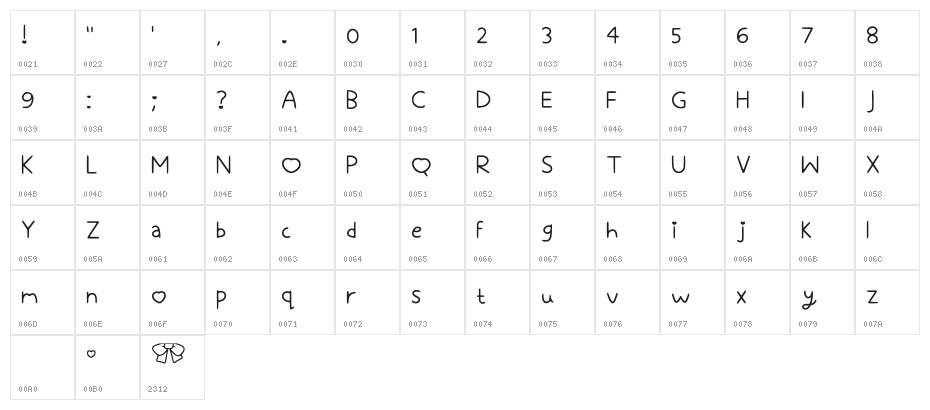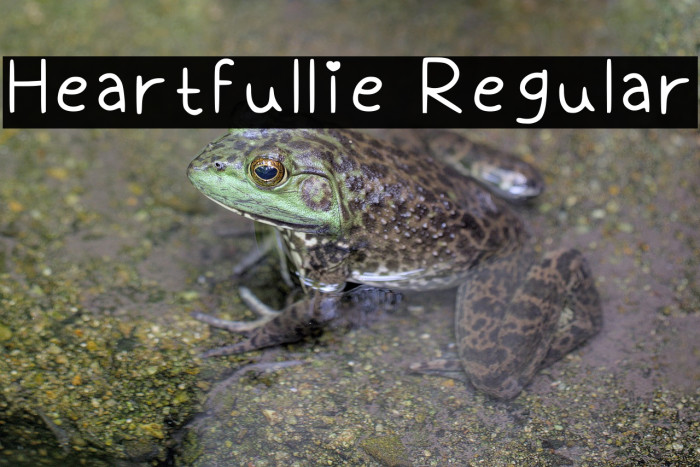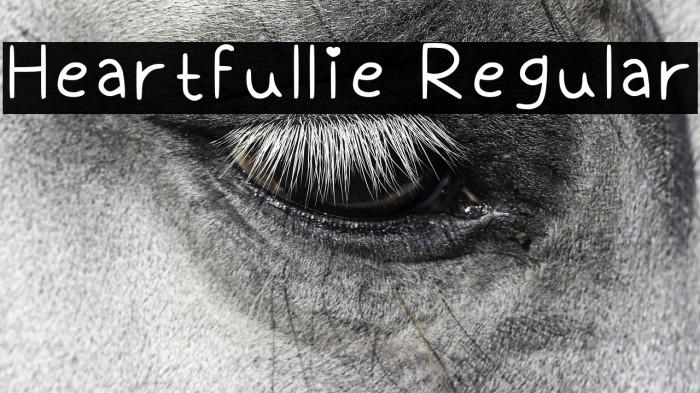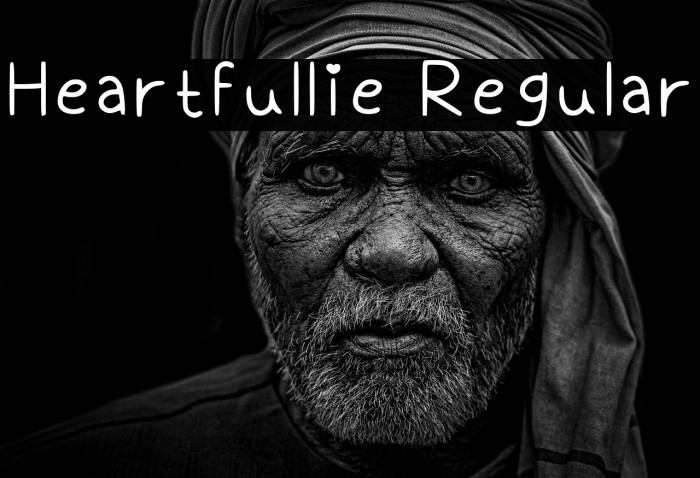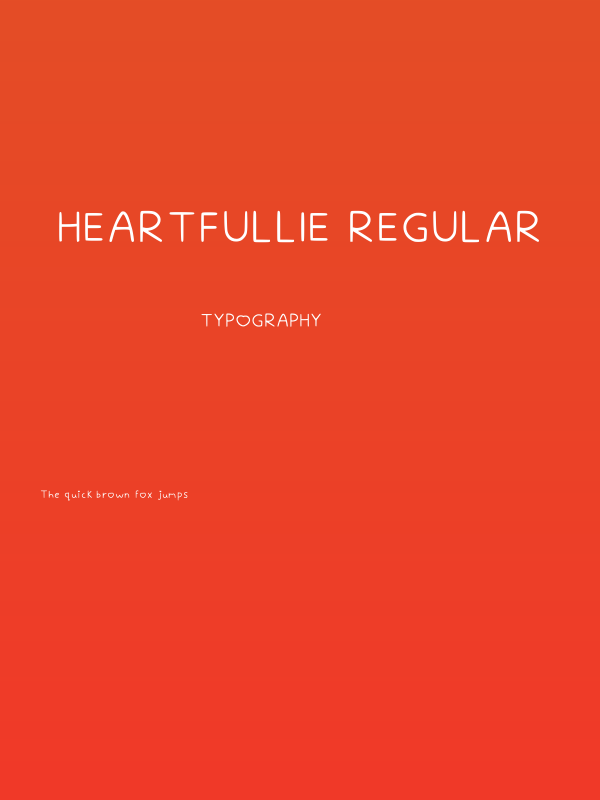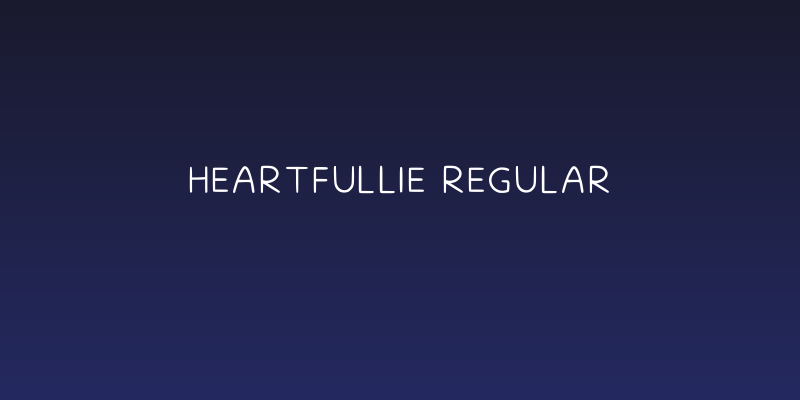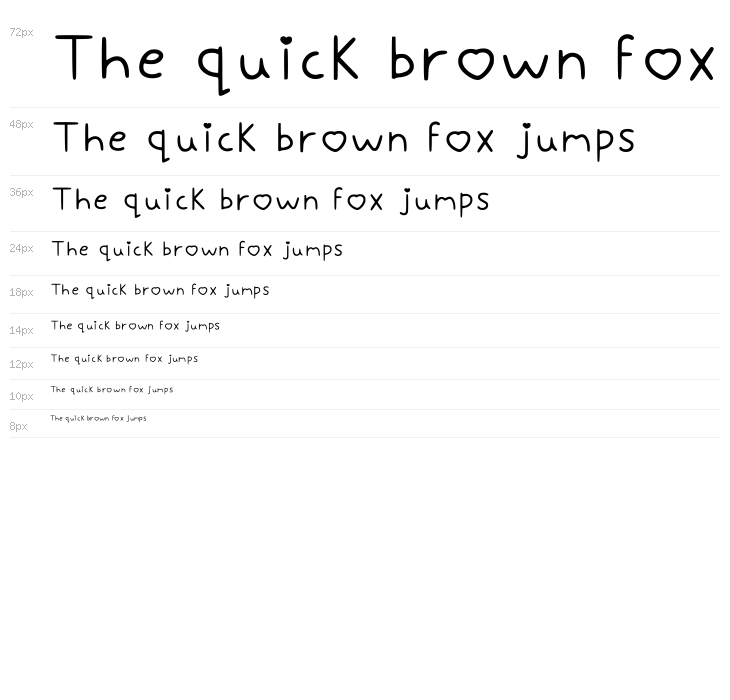
Heartfullie Regular Font
Heartfullie Regular Description
This font features a playful and whimsical design, characterized by its unique heart-shaped elements integrated into certain letters. The strokes are smooth and rounded, giving it a friendly and approachable appearance. The uppercase and lowercase letters maintain a consistent style, with a slight variation in the heart motifs. Numbers and special characters follow the same playful theme, making it suitable for creative and informal projects. The overall look is charming and distinctive, ideal for adding a touch of personality to any design.